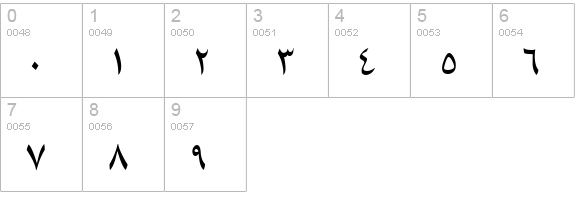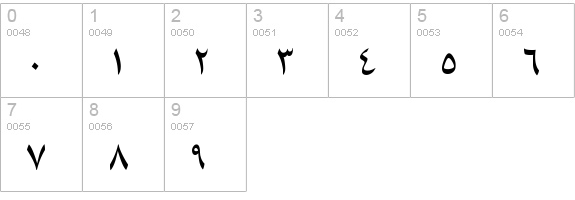
B Fantezy Font Details
B Fantezy font is a whimsical and playful typeface that exudes creativity and fun. With its unique and eye-catching design, this font is perfect for adding a touch of fantasy to your projects. The curvy and decorative elements of B Fantezy font make it stand out and grab attention, making it a great choice for headlines, logos, and invitations. What makes B Fantezy font even better is that it is available for free download at FontsMarket.com. This means that you can easily add this charming font to your collection without any cost. So go ahead and let your imagination run wild with B Fantezy font, and bring a touch of magic to your designs.